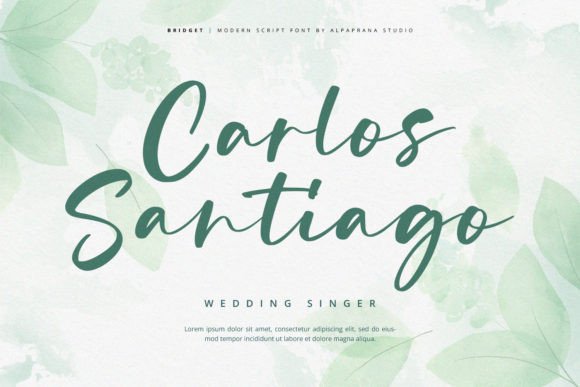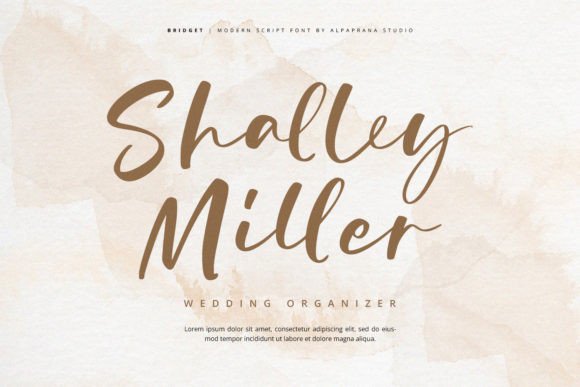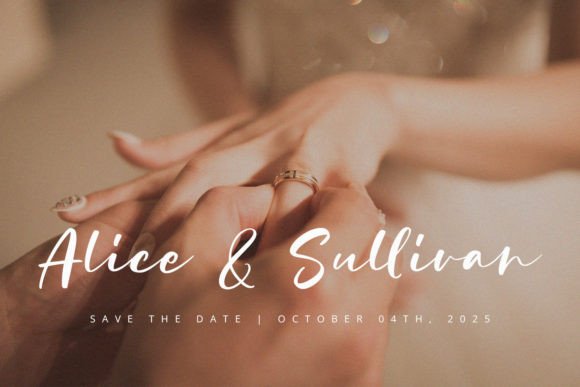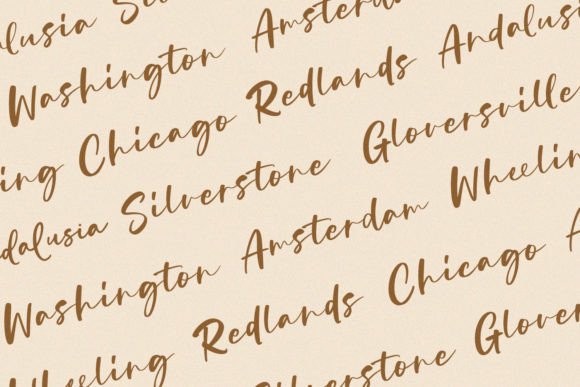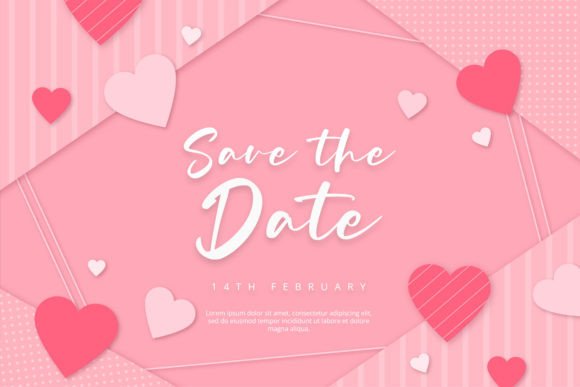
Discover the Elegance of Bridget Font: A Modern Script Font for Creative Projects
In the world of typography, fonts play a crucial role in conveying messages, evoking emotions, and creating lasting impressions. For designers, crafters, and creative enthusiasts, finding the right font can make all the difference in bringing their projects to life. This is where Bridget Font comes into play – a modern script font that exudes natural and classic feels, perfect for a wide range of applications.
What is Bridget Font?
Bridget Script is a beautifully crafted modern script font that seamlessly blends elegance with a touch of classic charm. Its unique design ensures that it stands out in any project, whether it’s for branding, logo design, lettering, or any other creative endeavor. The font’s natural flow and classic undertones make it versatile and highly adaptable across various mediums.
Key Features of Bridget Font
- Modern Script Style: Bridget Font boasts a contemporary script style that is both trendy and timeless. Its modern appeal ensures that your designs look current and fresh.
- Natural and Classic Feels: The font’s design is rooted in classic typography, offering a sense of warmth and authenticity. This makes it perfect for projects that require a personal touch.
- High Versatility: From branding and logo design to packaging and advertising, Bridget Font’s versatility knows no bounds. It’s suitable for a myriad of applications, including clothing, posters, magazines, shopping bags, t-shirts, book covers, and more.
- Ease of Use: Designed with user-friendliness in mind, Bridget Font is easy to integrate into various design projects, making it a favorite among designers and crafters.
Applications of Bridget Font
The applications of Bridget Font are vast and varied. Here are some of the areas where this modern script font truly shines:
- Branding and Logo Design: Create memorable brand identities and logos that stand out with Bridget Font’s unique and elegant style.
- Lettering and Logotype: Add a personal touch to your lettering projects and create stunning logotypes that capture the essence of your brand or message.
- Clothing and Merchandise: Elevate your apparel and merchandise designs with a font that adds a touch of sophistication and charm.
- Posters and Magazines: Make your posters and magazine layouts more engaging and visually appealing with Bridget Font’s elegant script.
- Packaging and Shopping Bags: Stand out in the retail space with eye-catching packaging and shopping bag designs that utilize the unique style of Bridget Font.
- T-Shirts and Book Covers: Create compelling and stylish t-shirt and book cover designs that draw attention and leave a lasting impression.
- Photography and Special Events: Use Bridget Font to add a touch of elegance to your photography projects and special event materials, such as invitations and programs.
Why Choose Bridget Font?
In a sea of fonts, Bridget Font stands out for several reasons:
- Unique Style: Its modern script style combined with classic feels makes it a unique addition to any design project.
- Versatility: The font’s adaptability across various mediums and applications makes it a valuable asset for designers and crafters.
- Emotional Connection: Bridget Font has the power to evoke emotions and create a personal connection with the audience, making your designs more impactful.
Bridget Font is more than just a modern script font – it’s a tool for creative expression and a means to bring your design projects to life. With its natural and classic feels, versatility, and unique style, it’s an excellent choice for designers and crafters looking to add a touch of elegance and sophistication to their work. Whether you’re working on branding, packaging, clothing, or any other creative project, Bridget Font is sure to make your designs stand out.
Discover the elegance of Bridget Font today and elevate your design projects to new heights of creativity and visual appeal.